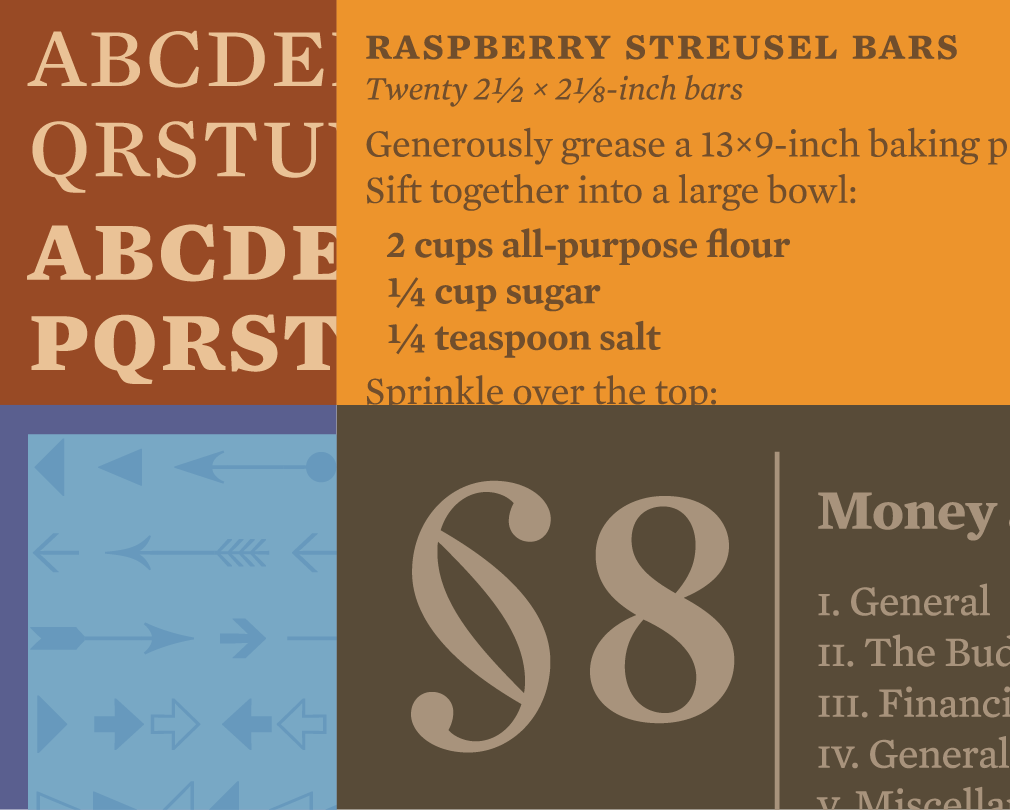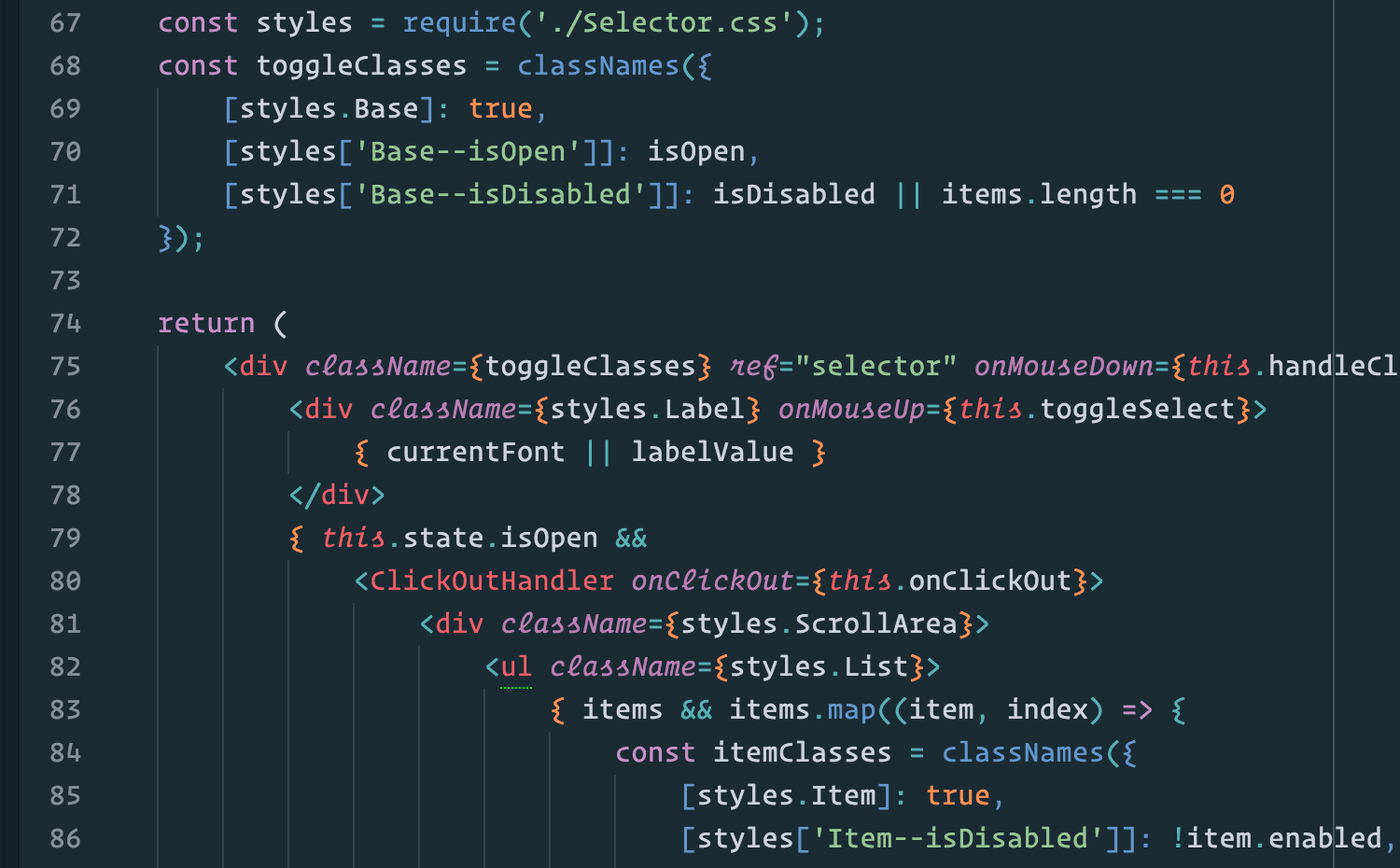
Mercury is a versatile serif typeface designed for both text and display use. Known for its elegant proportions and readability, it is often employed in editorial design and branding. The typeface is characterized by its classic forms and modern sensibility, making it suitable for a wide range of applications.
Hoefler&Co.
Hoefler & Co. is an American digital type foundry based in Woburn, Massachusetts, known for its extensive catalog of over 1,500 typefaces that have influenced various design fields. Founded by Jonathan Hoefler, the foundry has received notable recognition, including being the first to win a National Design Award.
Operator is a modern sans-serif typeface designed for optimal legibility on screens. It was created to address the unique challenges of digital typography, making it suitable for both text and display use. Known for its clean lines and versatility, Operator is often utilized in user interfaces and digital products.